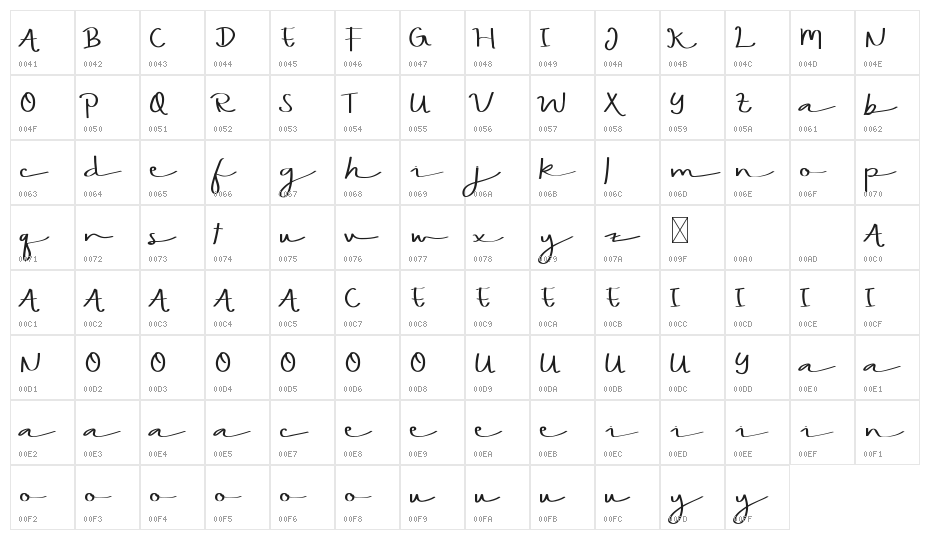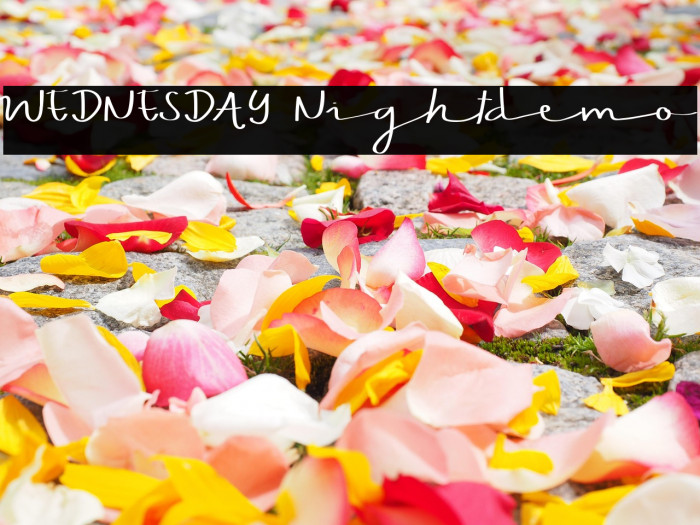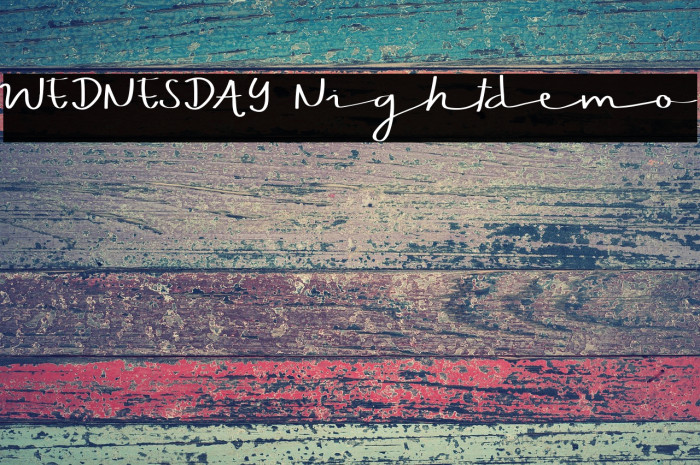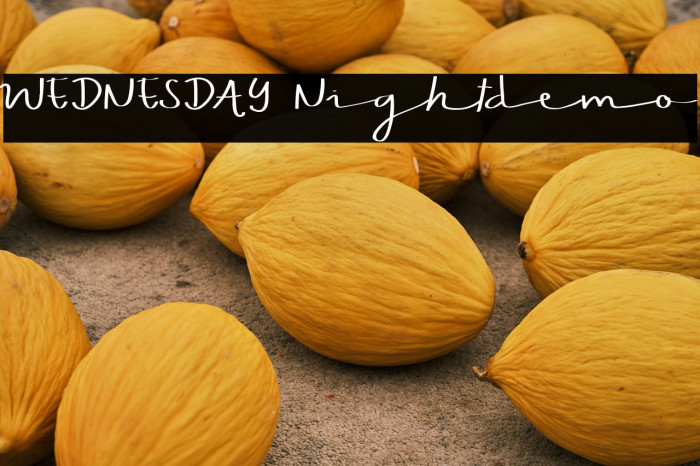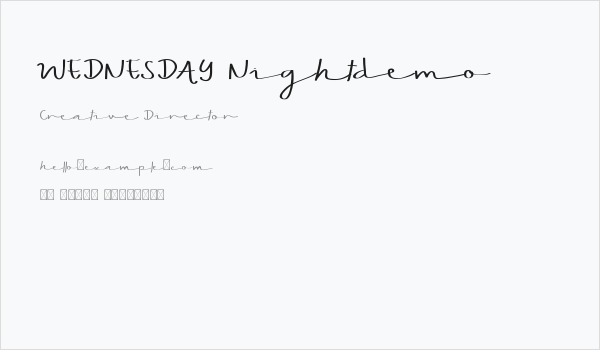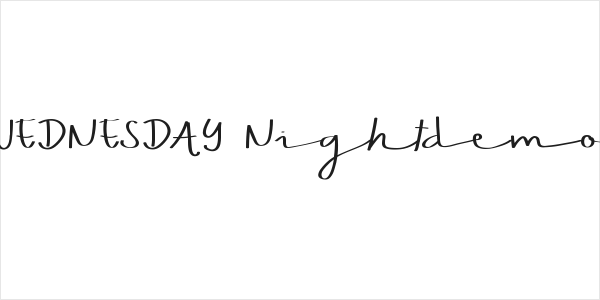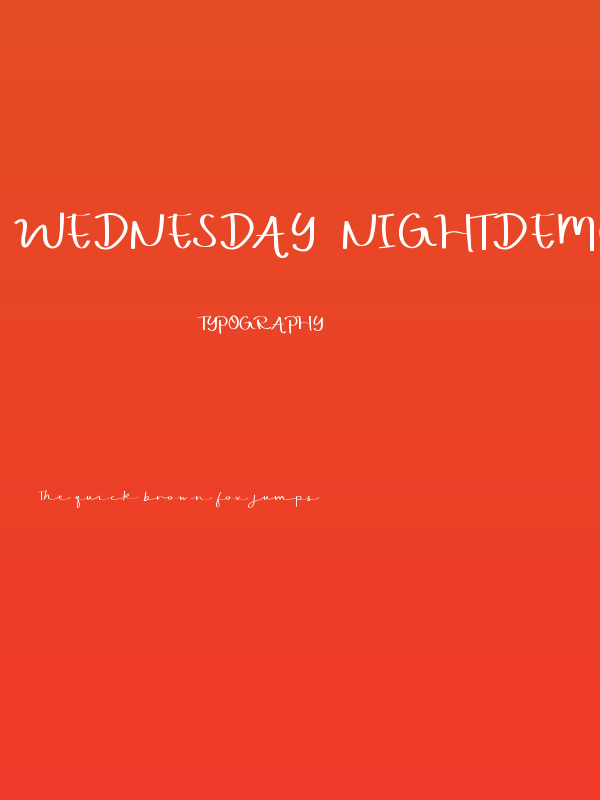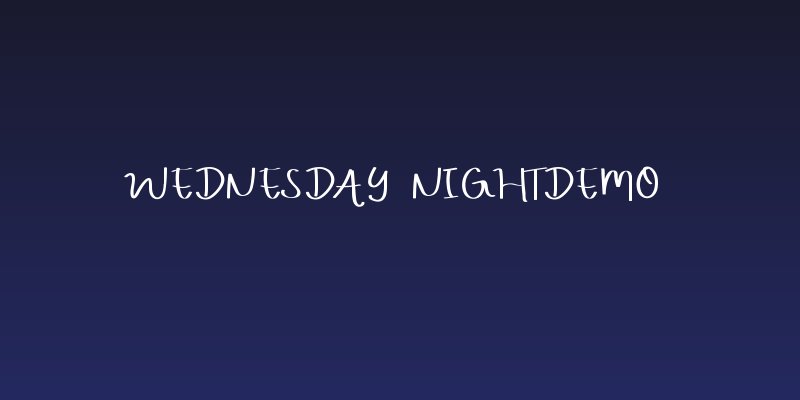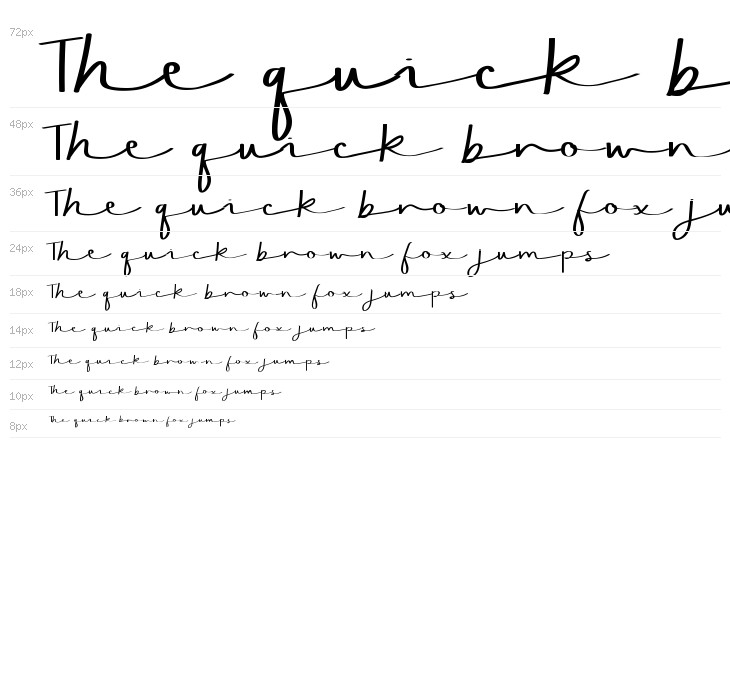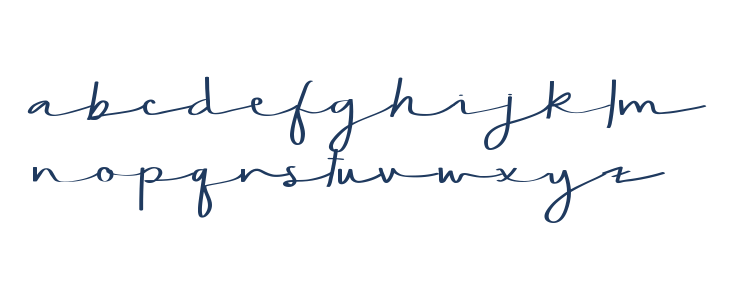
WEDNESDAY Nightdemo Font
WEDNESDAY Nightdemo Description
This font features a playful and elegant script style with a handwritten appearance. The uppercase letters are bold and expressive, with unique flourishes that add character and charm. The lowercase letters are more delicate, with a smooth, flowing quality that enhances readability. The font maintains a consistent stroke width, giving it a balanced and harmonious look. The overall design is modern yet retains a touch of classic calligraphy, making it versatile for various design needs.
| Use Case | Logos, Invitations, Social Media |
| Proposed Projects | Ideal for wedding invitations, greeting cards, branding projects, and social media graphics. |